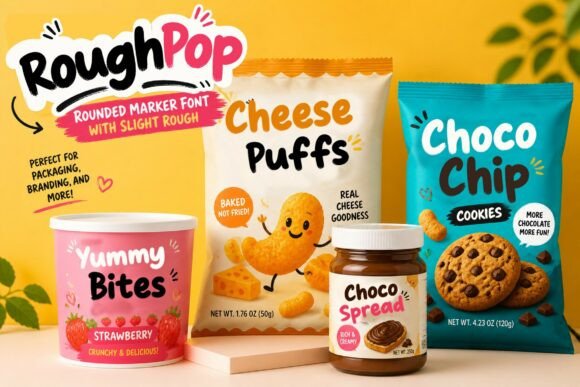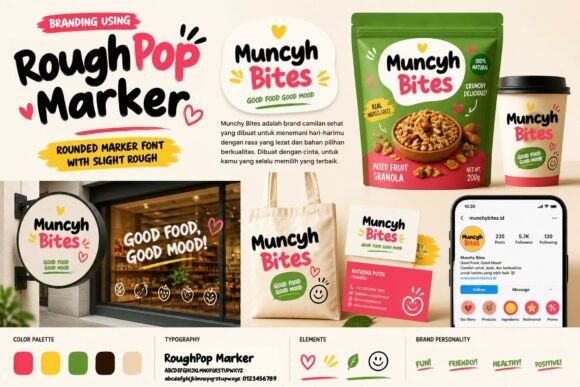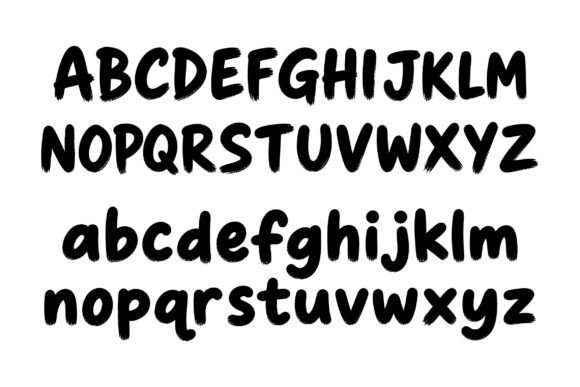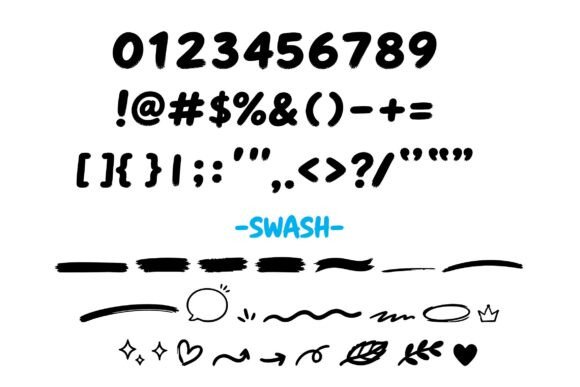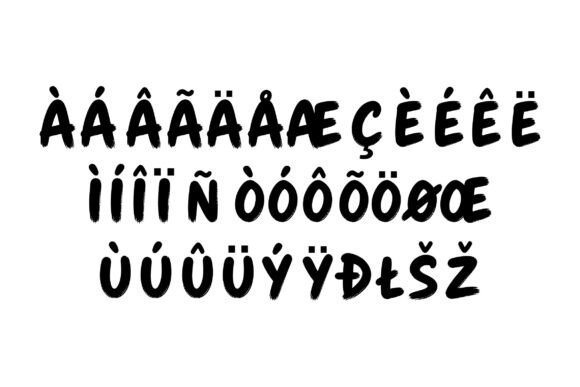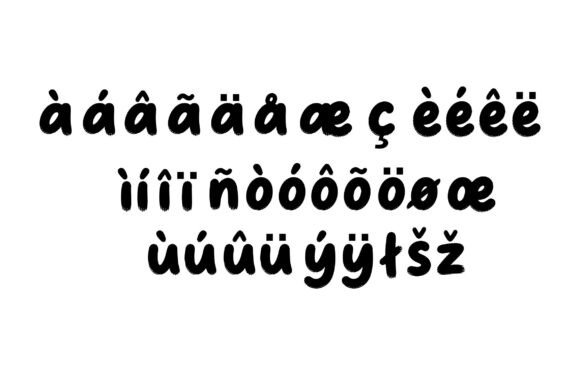
Introduction to Rough Pop Marker Font
RoughPop Marker is a bold handwritten display font featuring rounded marker strokes with a subtle rough texture.
Designed to combine playful energy with natural imperfection, this typeface delivers a friendly yet expressive look that stands out in modern creative projects Perfect for branding, packaging, social media, posters, kids products, and lifestyle designs that need a fun, organic, and eye-catching personality.
Key Features of Rough Pop Marker Font
Why Choose Rough Pop Marker Font?
Rough Pop Marker Font offers exceptional quality and versatility, making it a valuable addition to your design toolkit. Whether you’re creating for personal projects or commercial use, Rough Pop Marker Font delivers professional results.